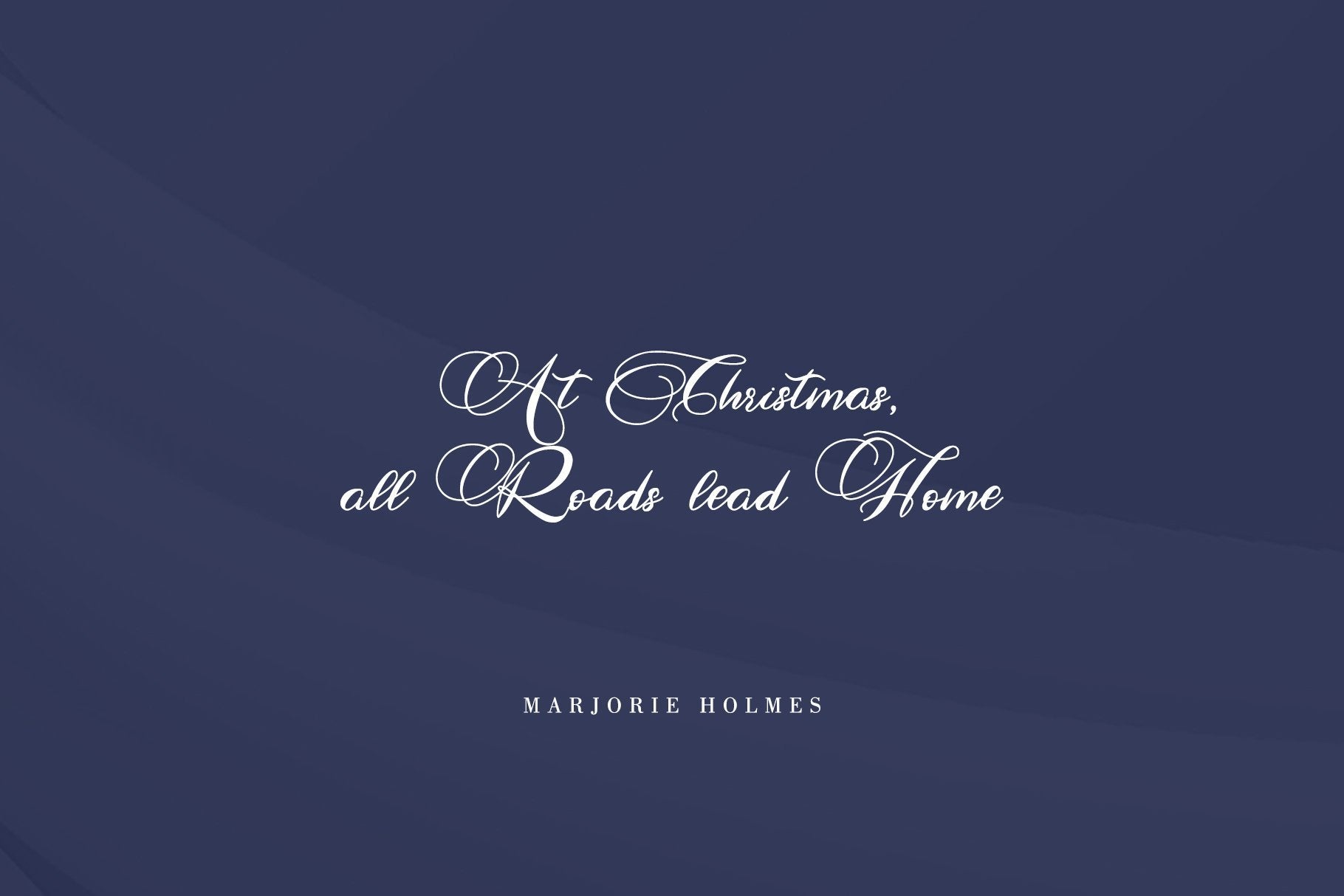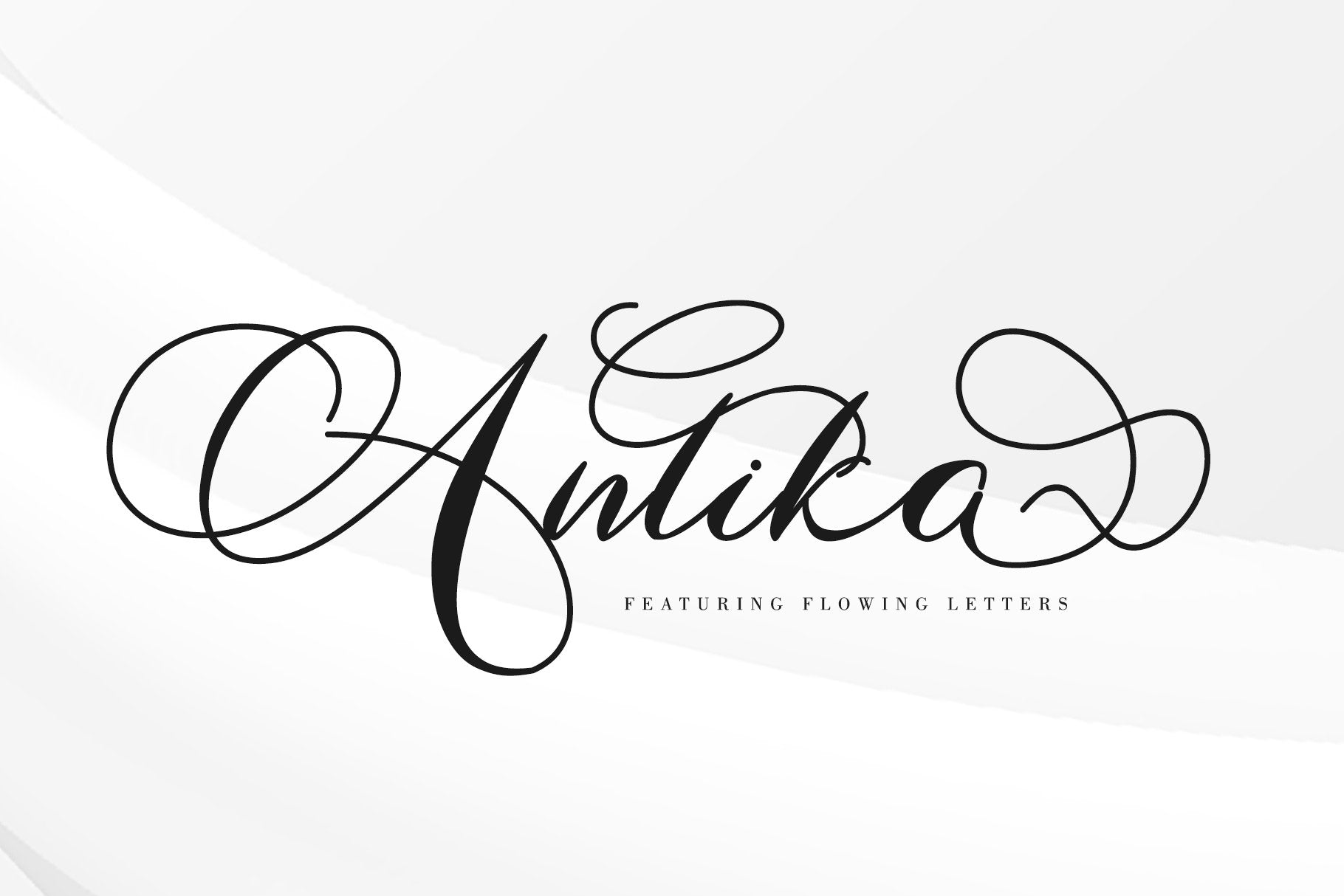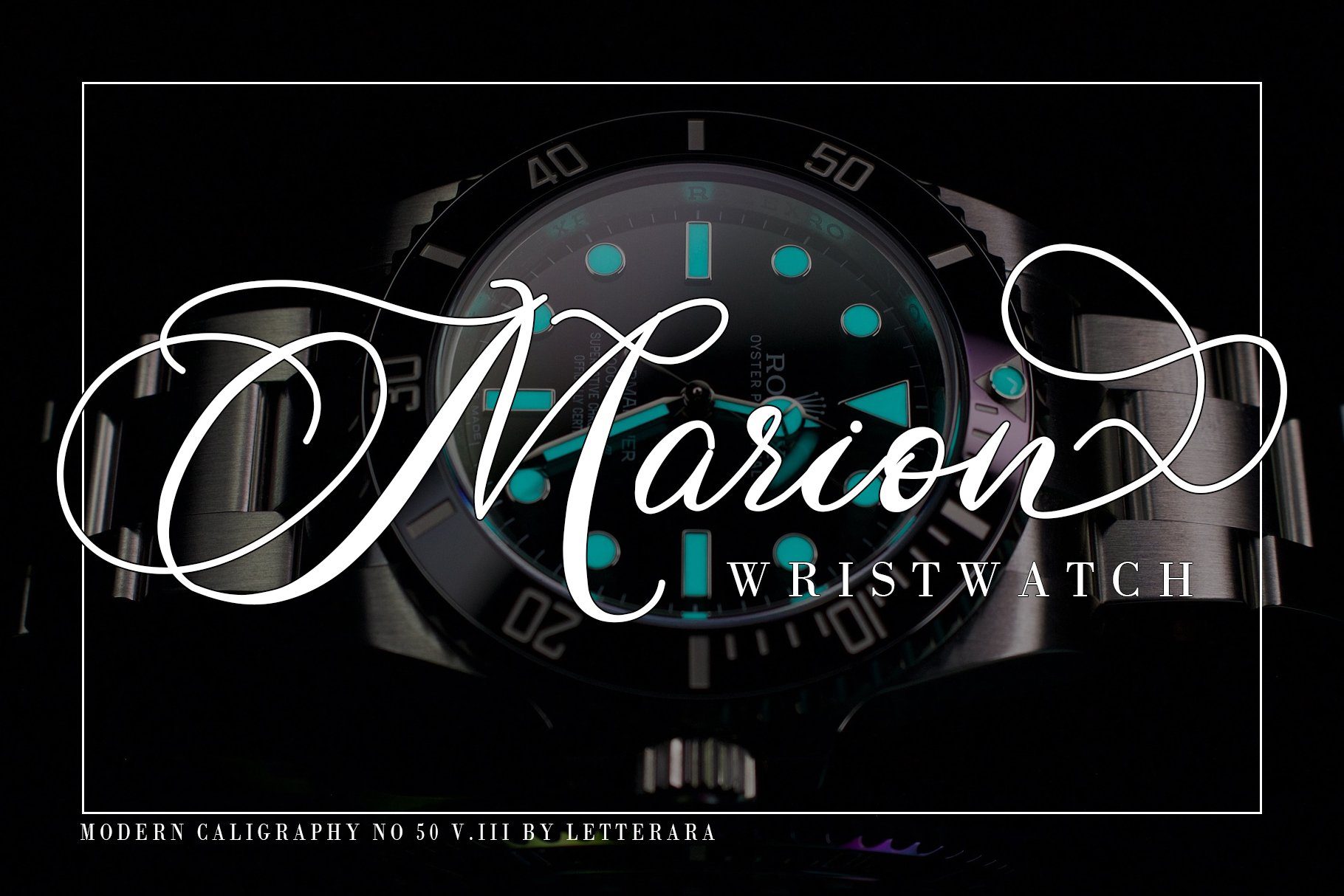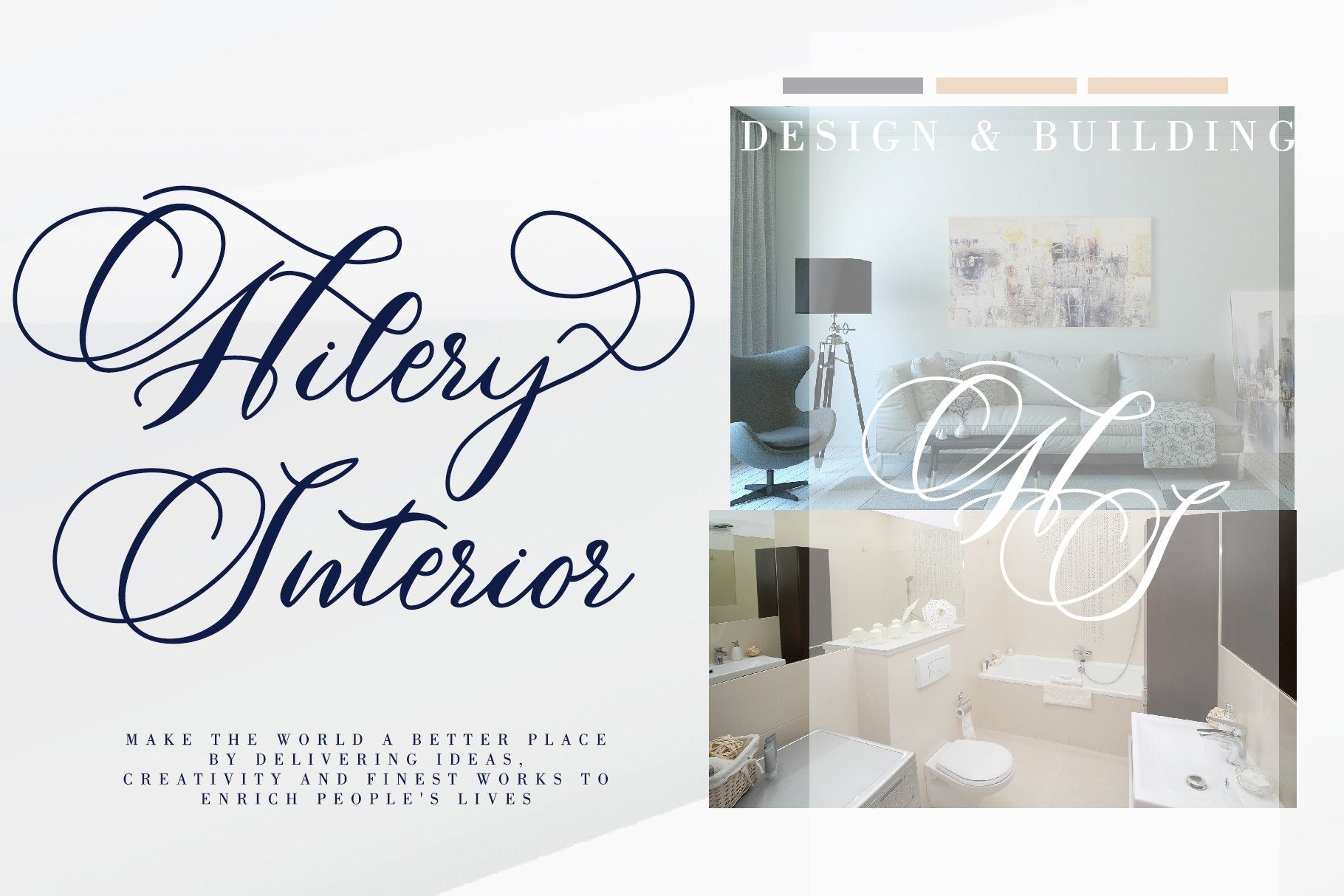
About Antika (LIMITED OFFER)
Antika is a beautiful modern script font featuring flowing letters. It will add a romantic touch to any crafting project! Thanks for checking out my store, and feel free to get in touch if you have any questions!  WITH MANY FEATURES : Upper Case & Lowercase Numerals Punctuations (OpenType Standard) Accents (Multilingual characters) Ligatures, Swash and Titling family font: regular and italic Works on PC & Mac Simple installations Accessible in the Adobe Illustrator, Adobe Photoshop, Adobe InDesign, even works on Microsoft Word. don’t wait anymore, put it in your shopping basket 🙂 and follow me, because there will be many promos! Our other products : BEST SELLER JENNIE BLACK PINK SIGNATURE ANDORA BRIGITTA HEANFFE EIFFEL IN LOVE ( FONT TRIO) BLACK PINK SUMMER HONG KONG ANGEL MALEFICENT California Street BESTOWENS FAMILY